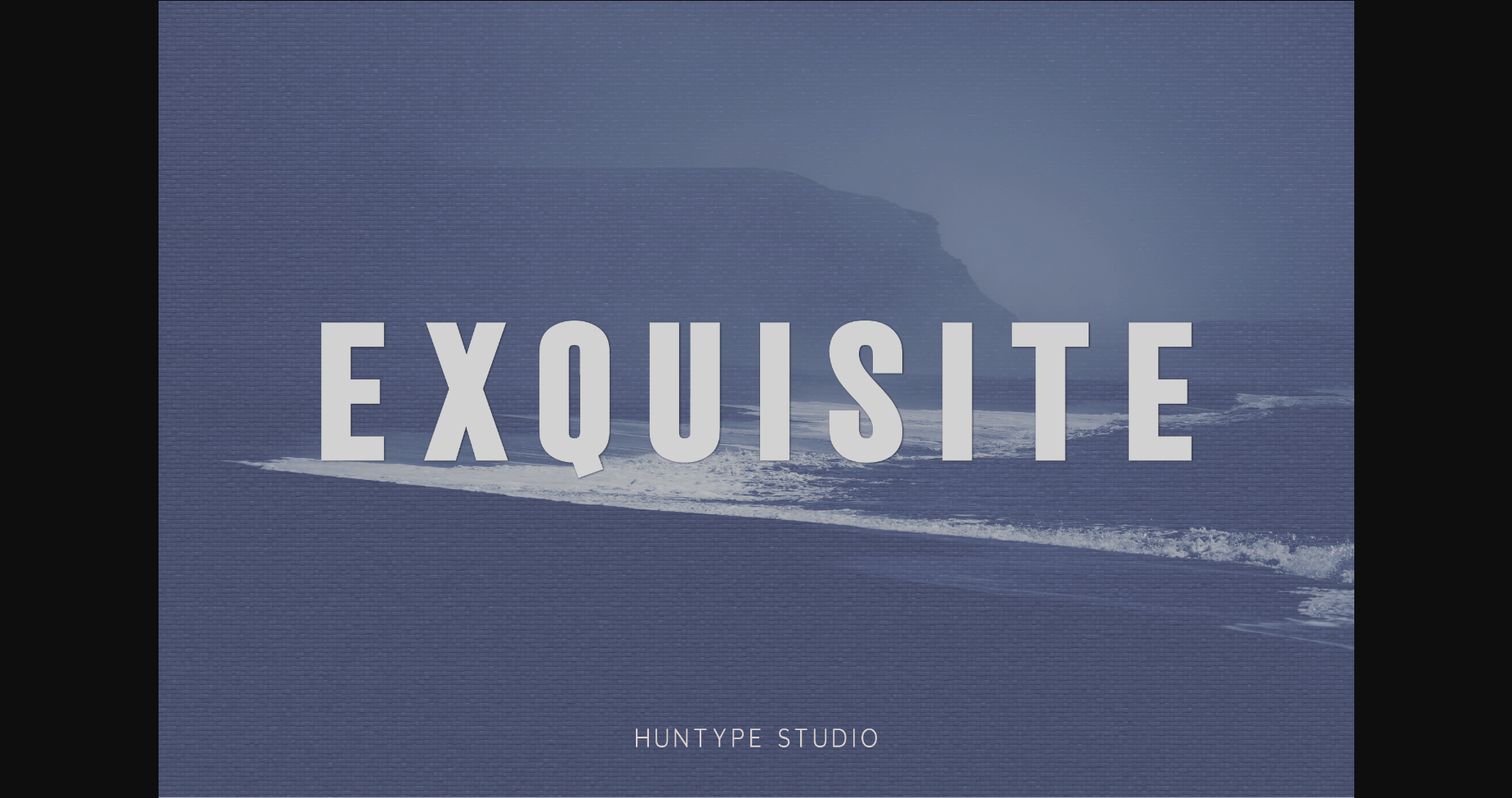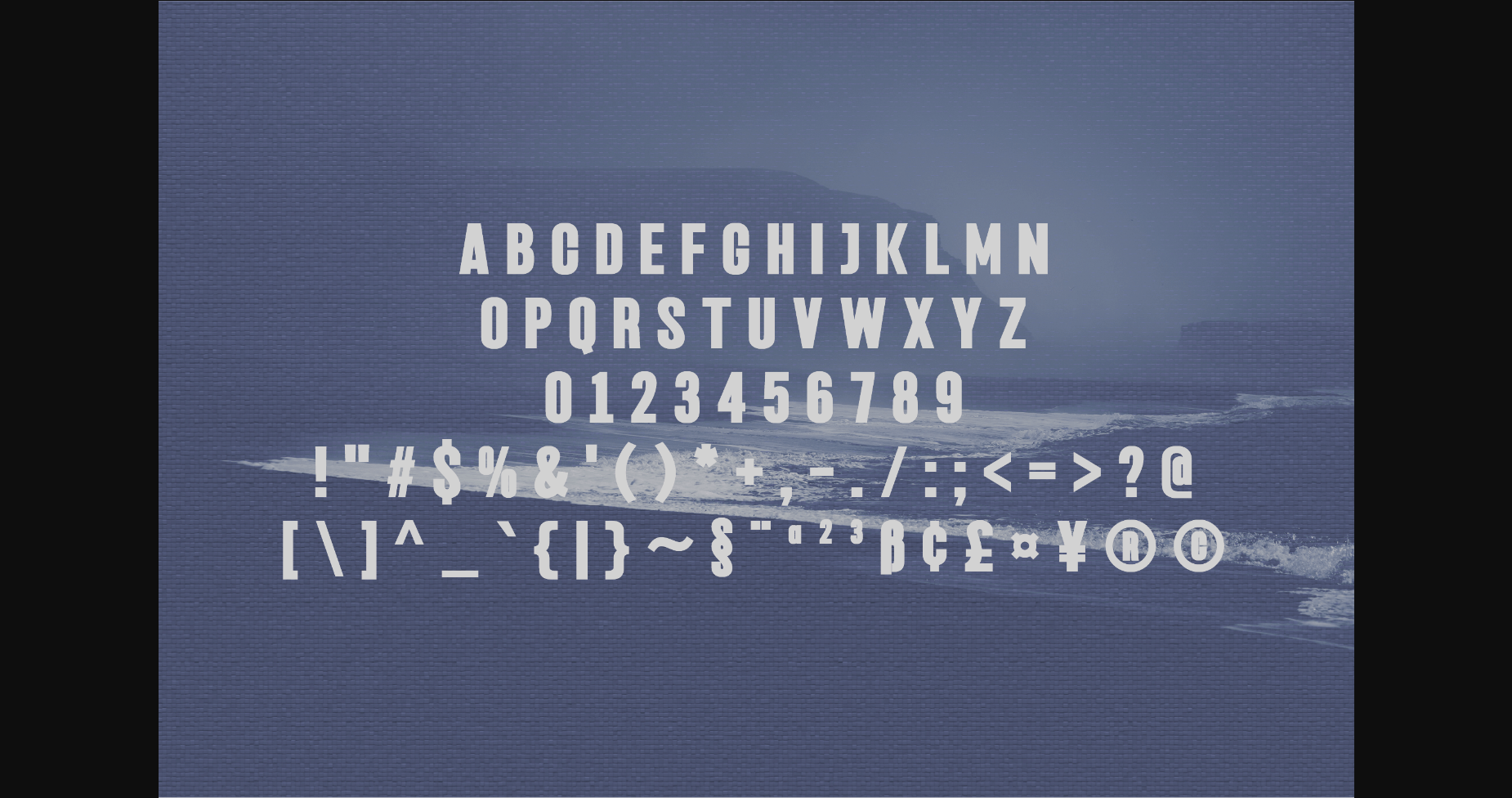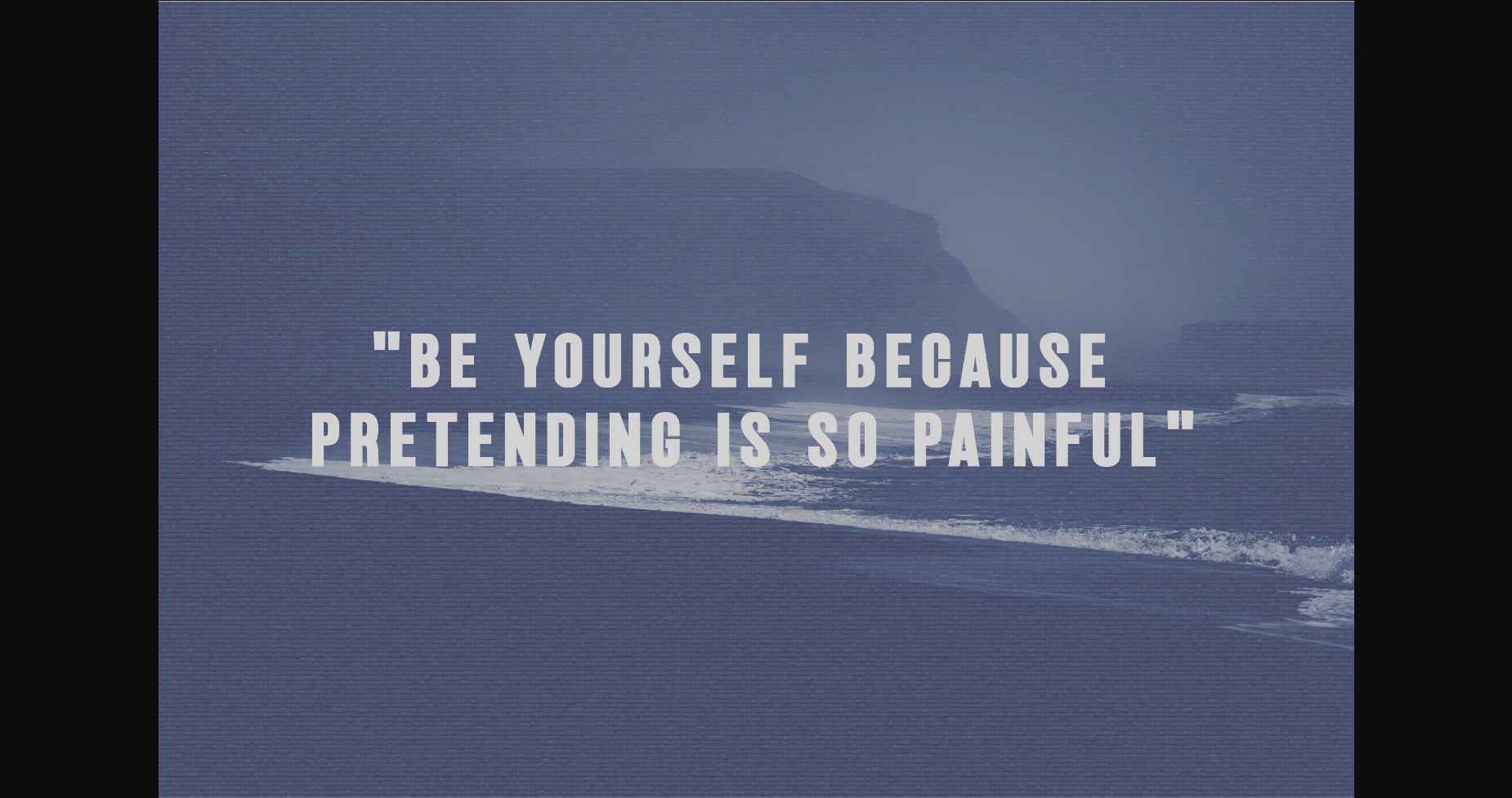
Exquisite is an all-caps sans serif. It is versatile and looks great in just about any context. With smooth and clean lines and just a touch of contrast, Exquisite works beautifully for logos, branding, and web headings.